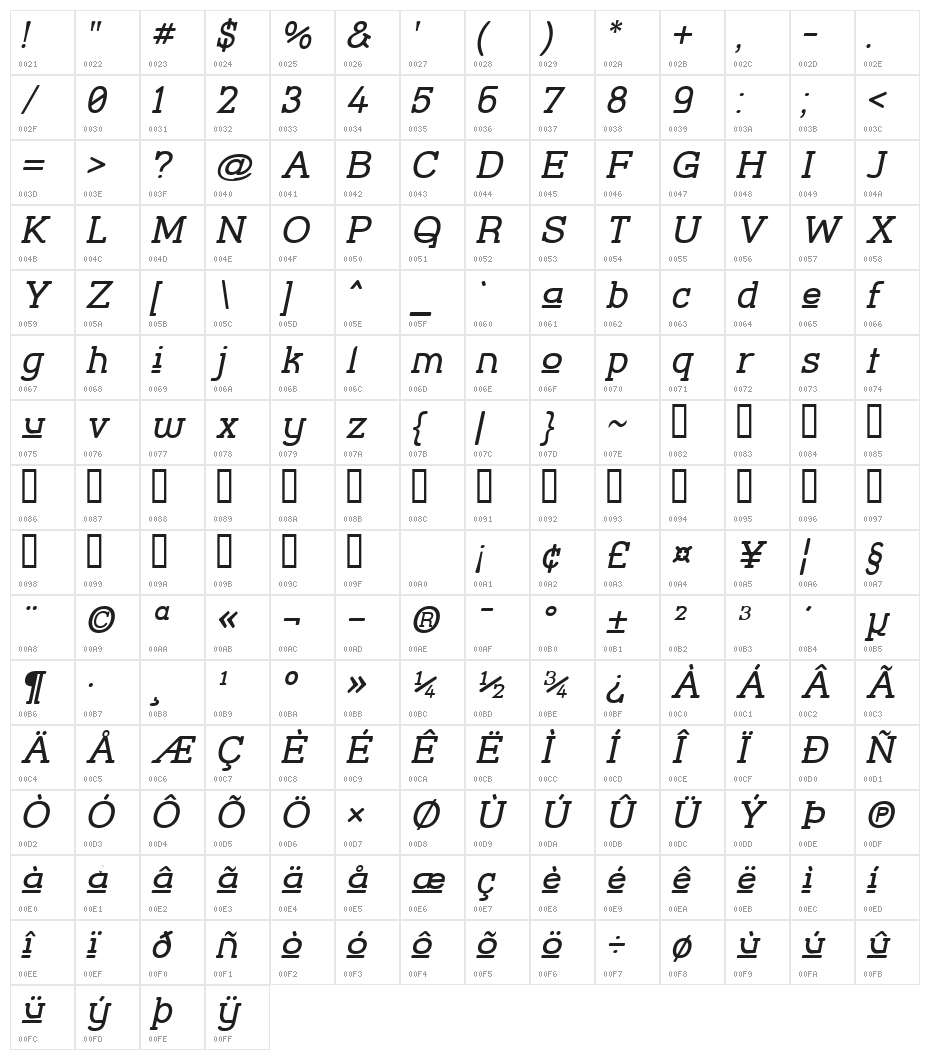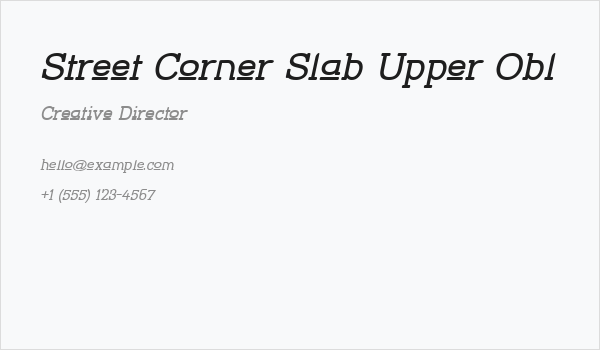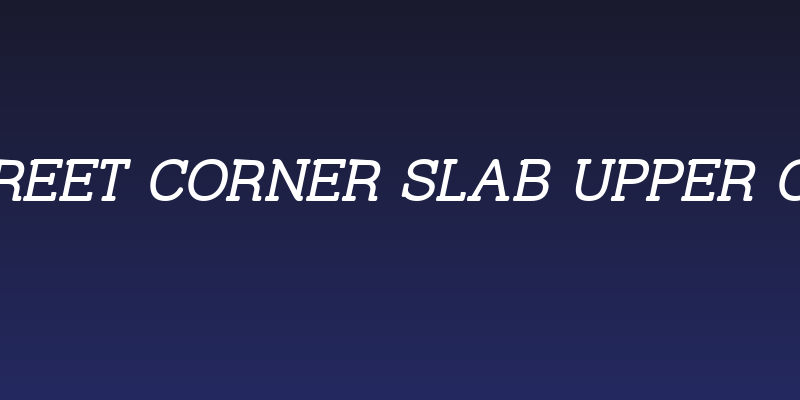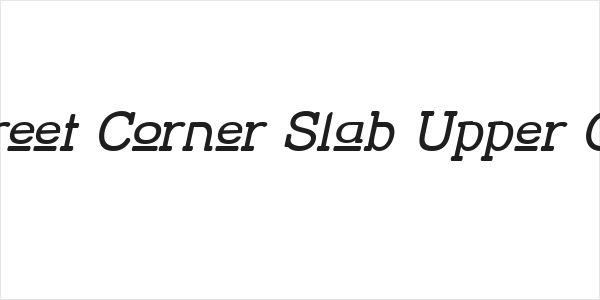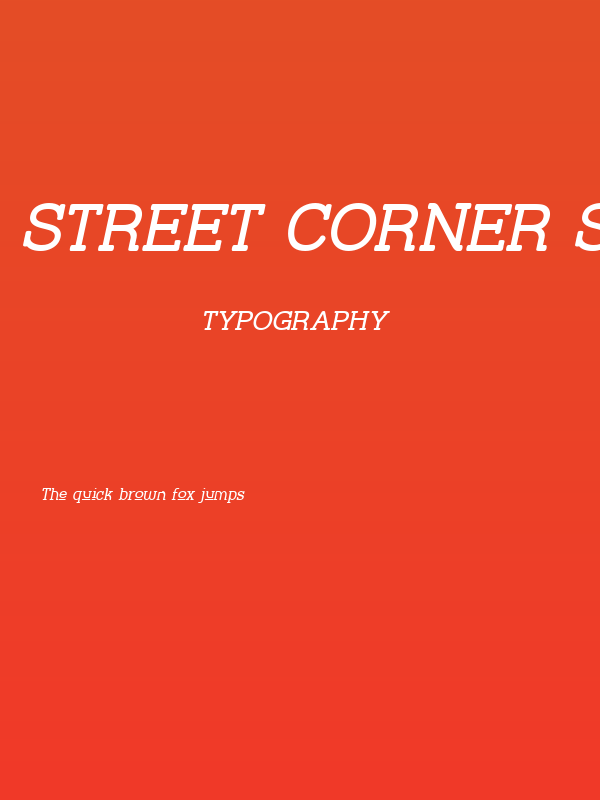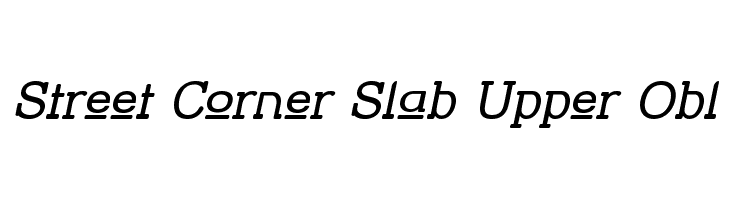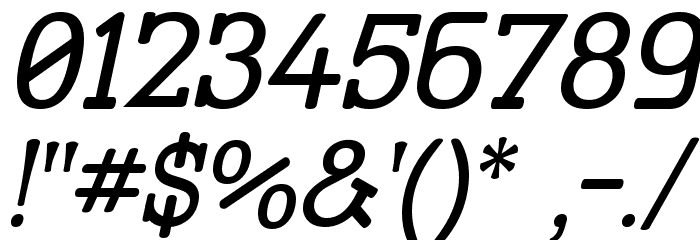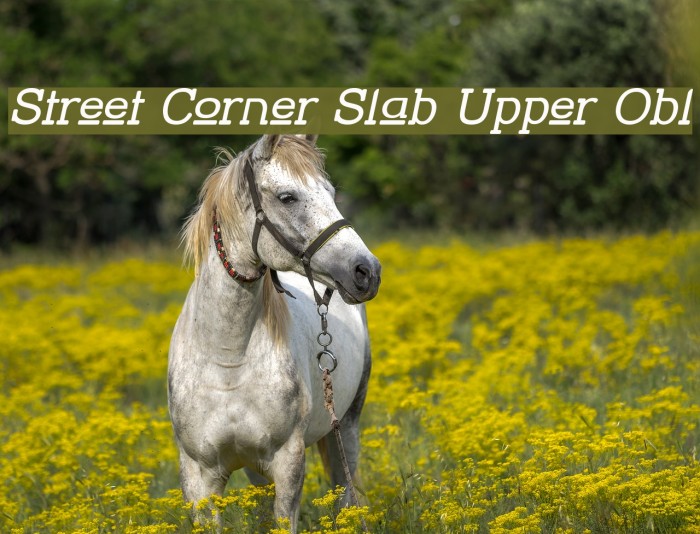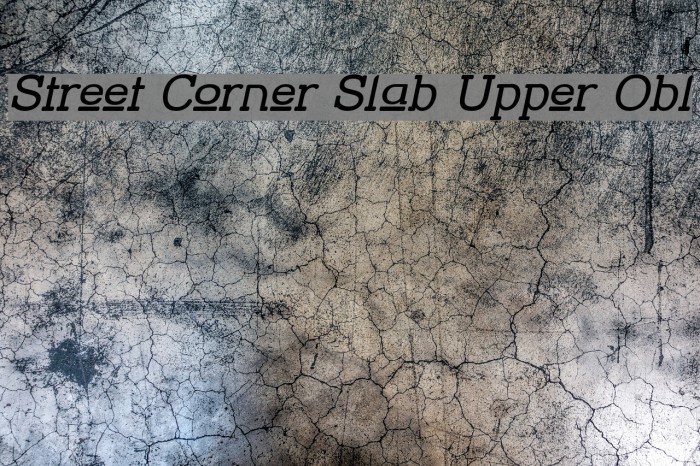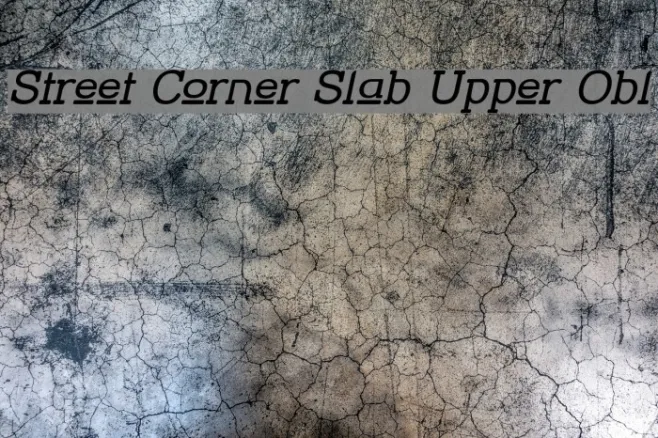
Street Corner Slab Upper Obl Font
Street Corner Slab Upper Obl Description
This font features a distinctive slab serif style with a modern twist, characterized by its bold and slightly condensed letterforms. The uppercase letters exhibit a strong presence with their thick serifs and slight oblique slant, giving a sense of forward movement. The lowercase letters maintain consistency with the uppercase, offering a harmonious blend of curves and angles. Numerals are clear and legible, with a uniform weight that complements the alphabetic characters. Special characters are well-integrated, maintaining the overall aesthetic of the font. The font's design is both robust and versatile, making it suitable for various applications.